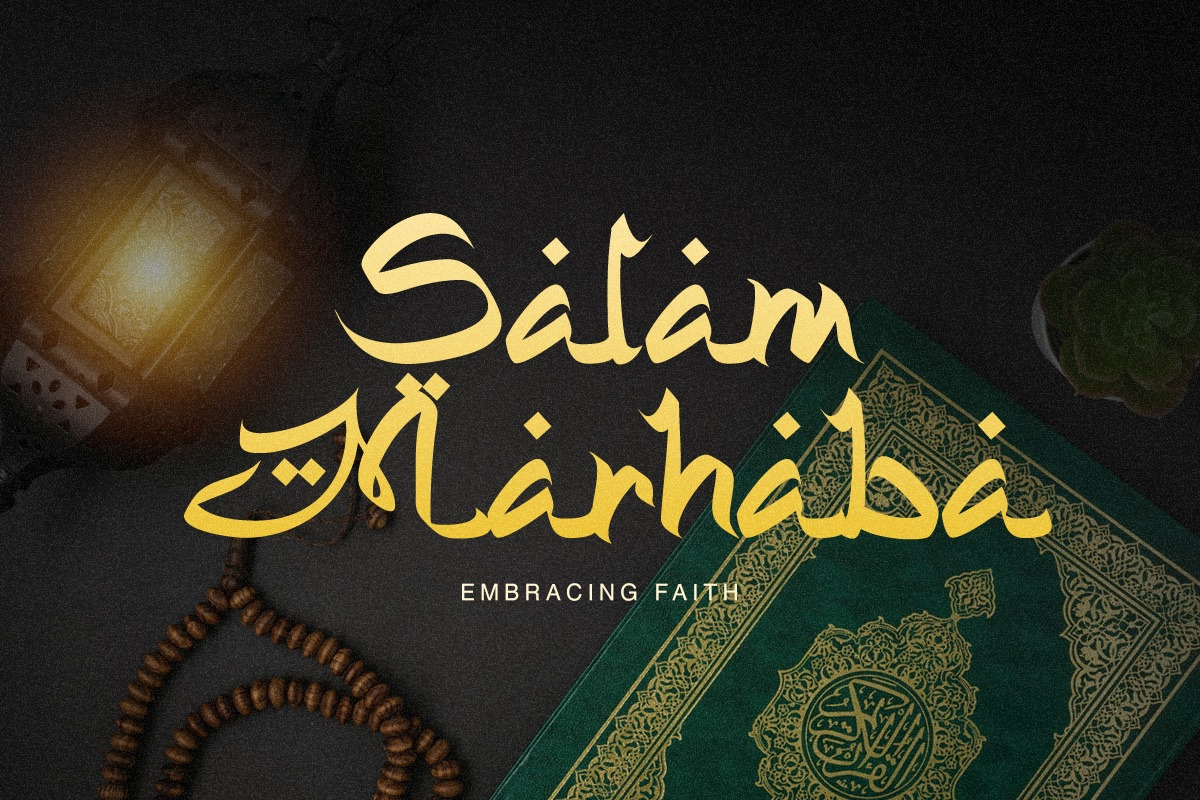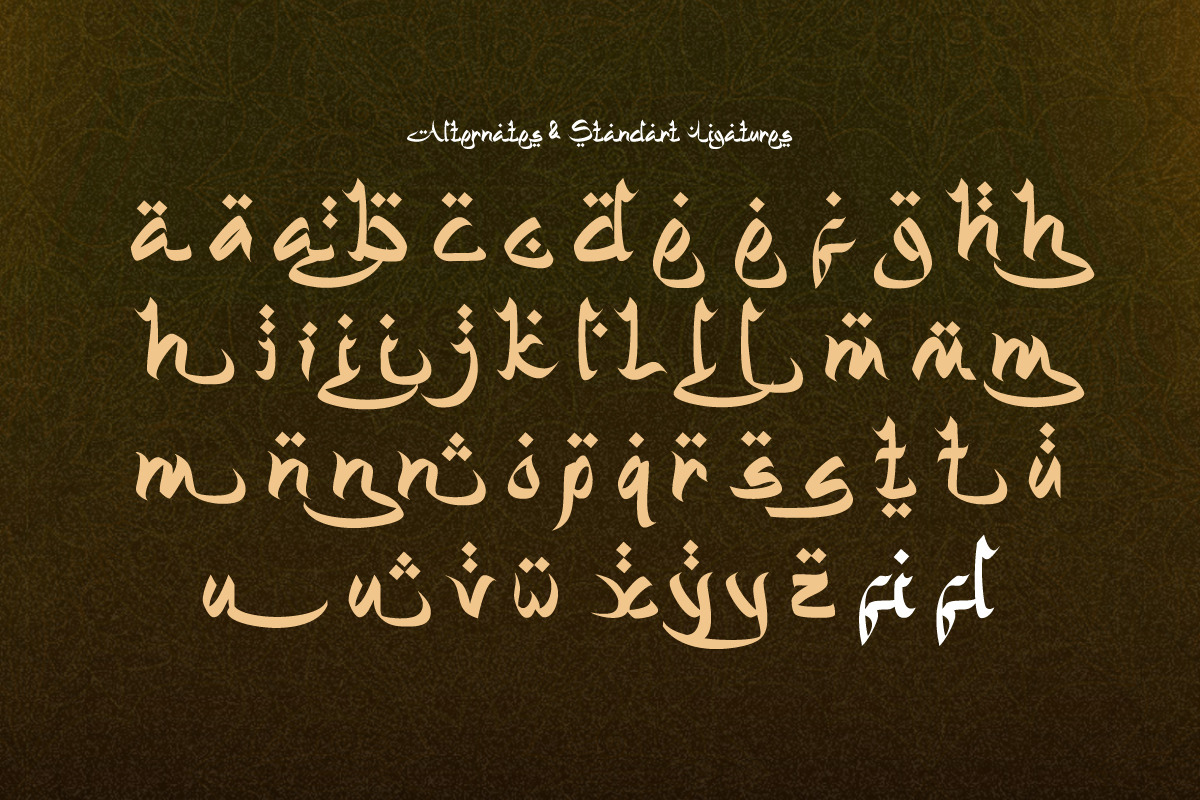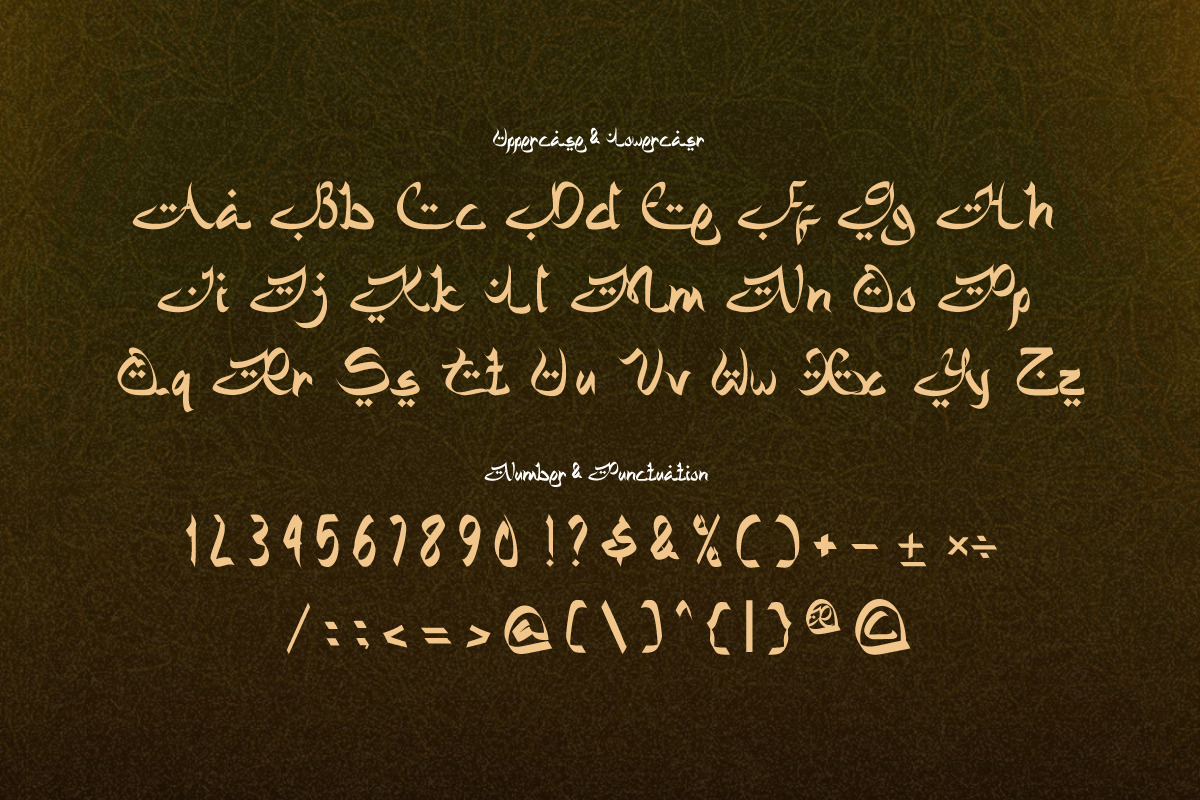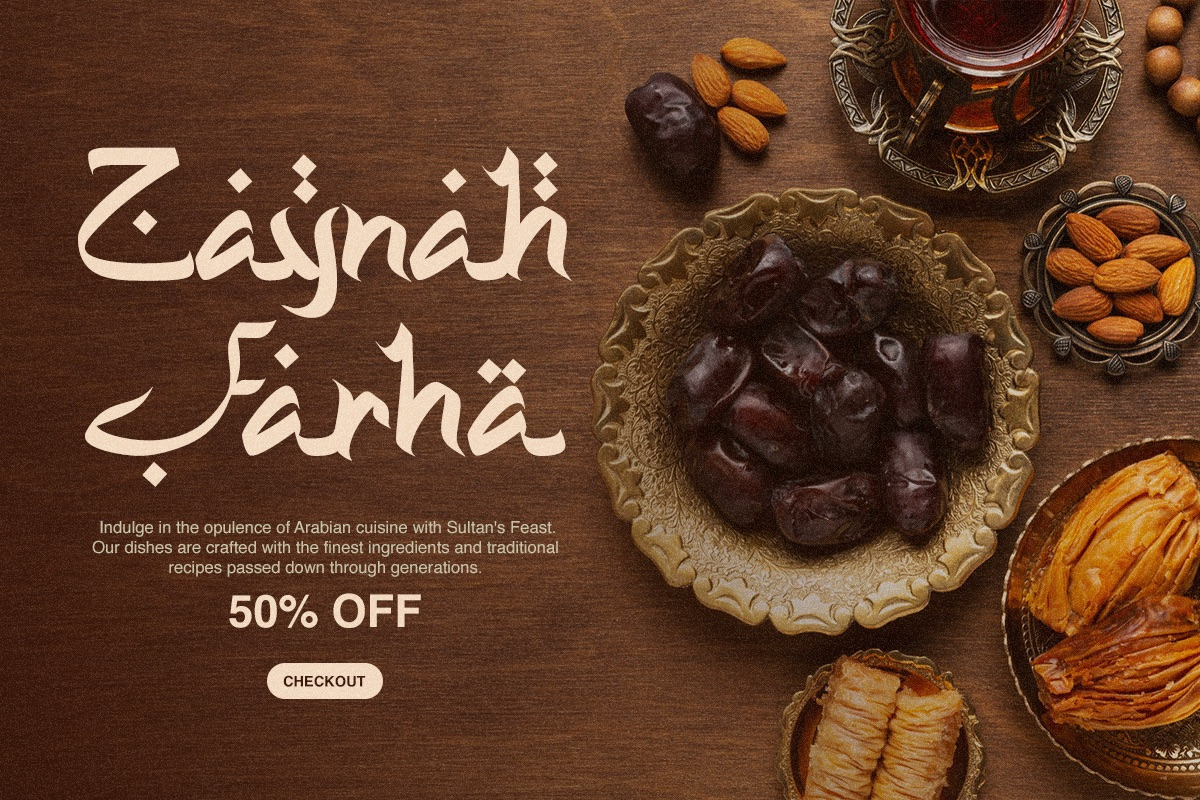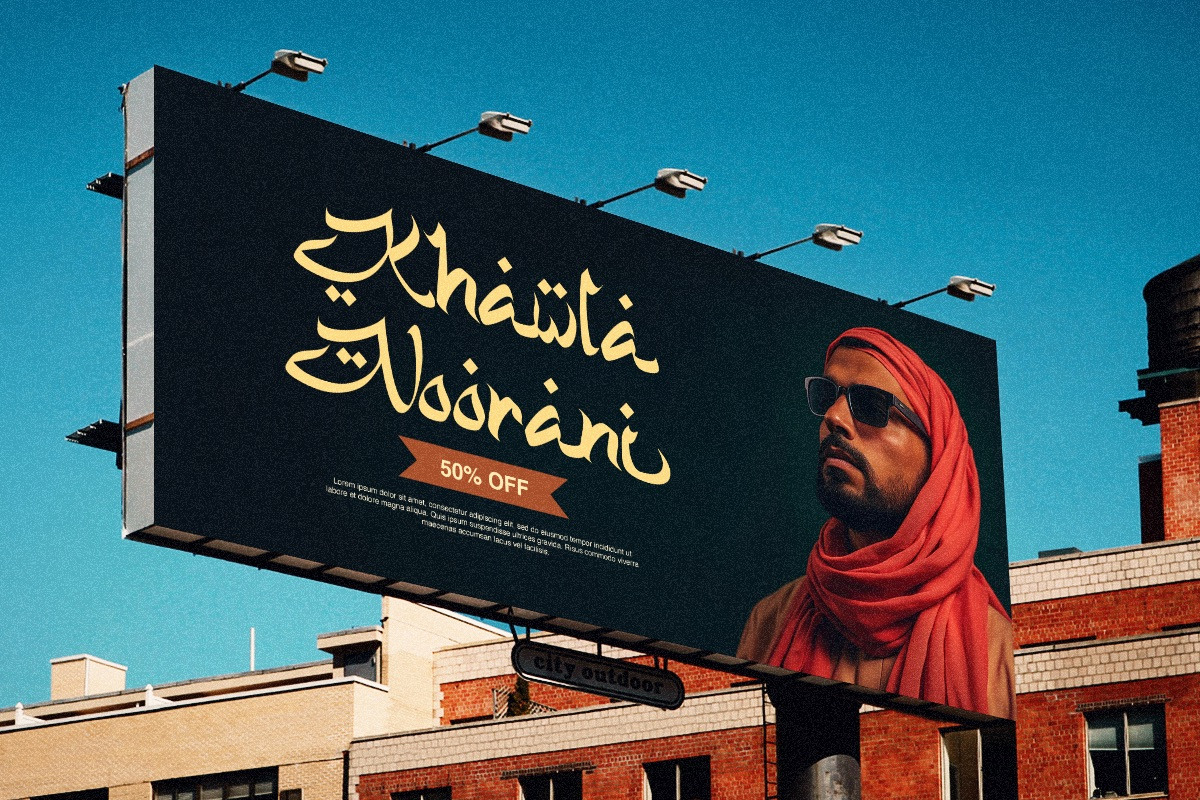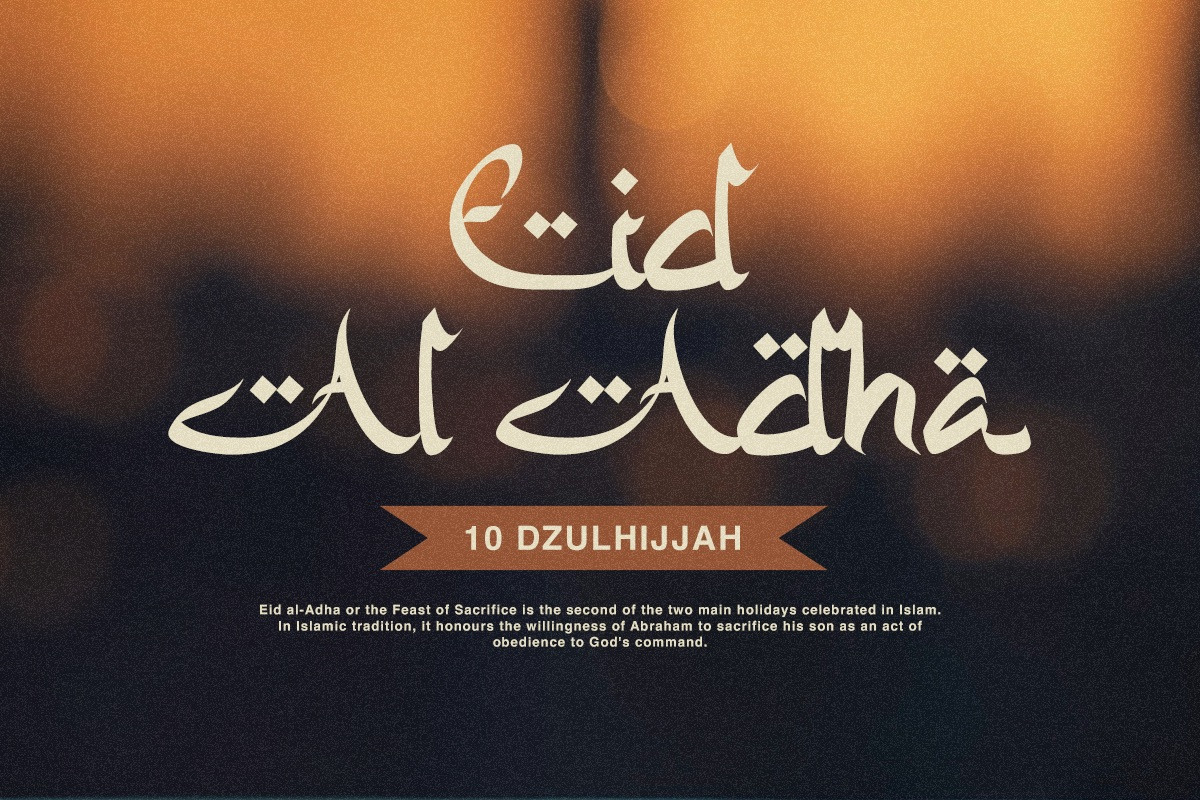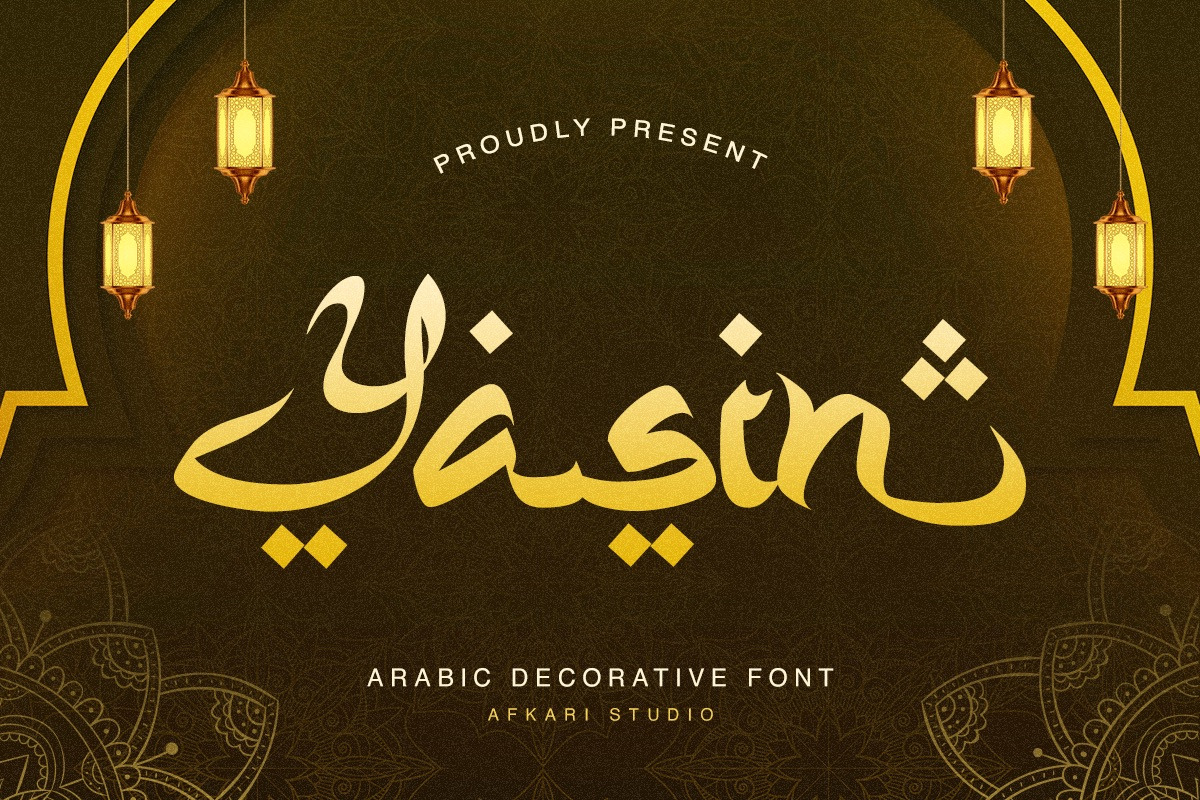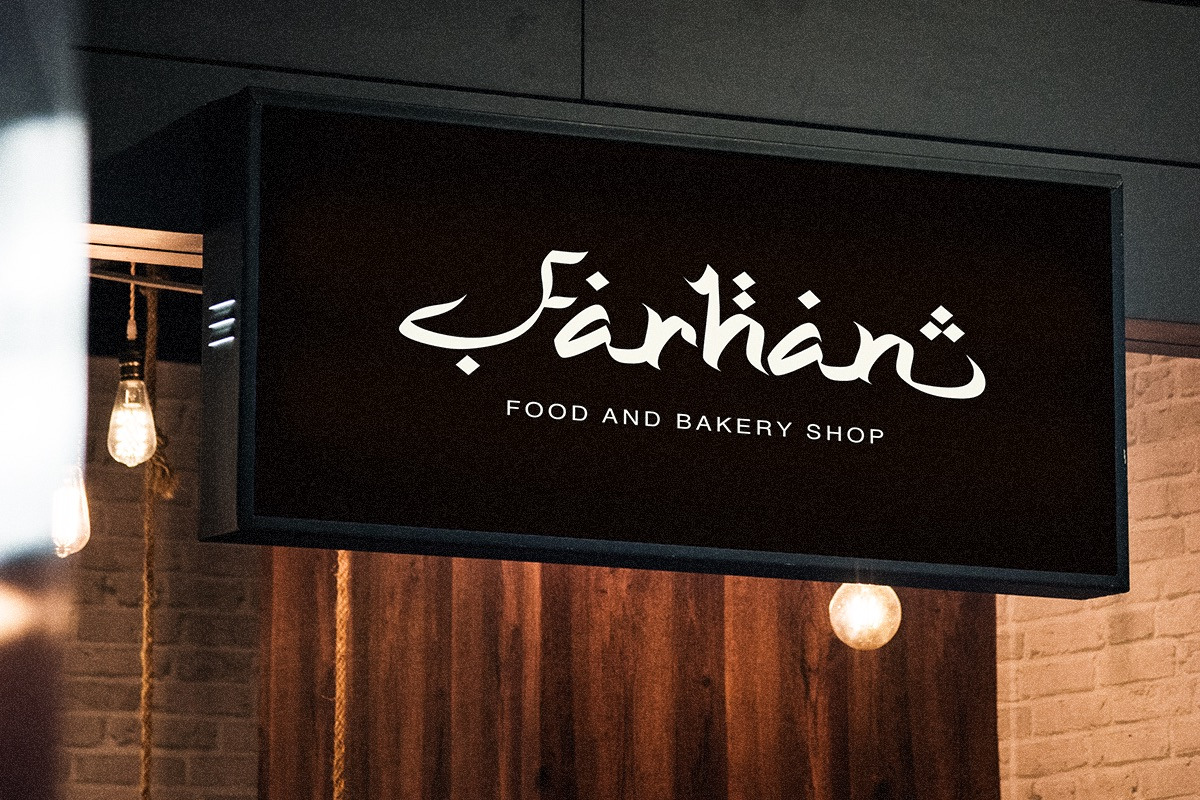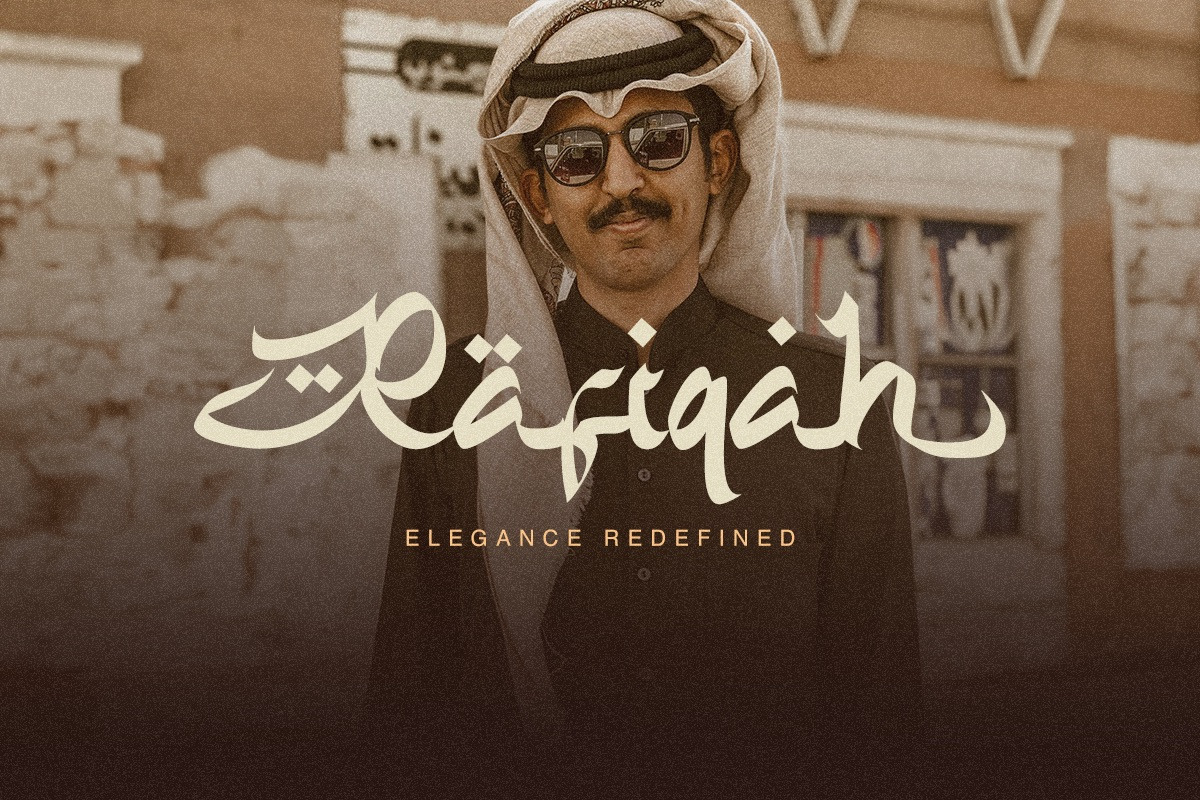
Yasin - An Arabic Decorative Font
Yasin is an exquisite Arabic decorative font that embodies the charm and intricacy of traditional Arabic calligraphy. Designed to captivate and inspire, Yasin features elaborate details and flowing lines that add a touch of elegance and sophistication to any design. Ideal for headlines, branding, invitations, and decorative purposes, Yasin transforms ordinary text into a visual masterpiece.
Yasin offers designers a tool to create stunning visuals that honor and celebrate Arabic artistic traditions. Its decorative elements make it perfect for projects that demand attention and convey a sense of cultural richness. Whether in digital platforms or print media, Yasin stands out as a versatile and beautiful typeface, bringing a timeless and artistic quality to your creative works.
- Uppercase, lowercase, numbers, and punctuation
- Special alternates and ligatures for added visual richness
- Multilingual support, accommodating characters like ä, ö, ü, Ä, Ö, Ü, ß, ¿, and ¡